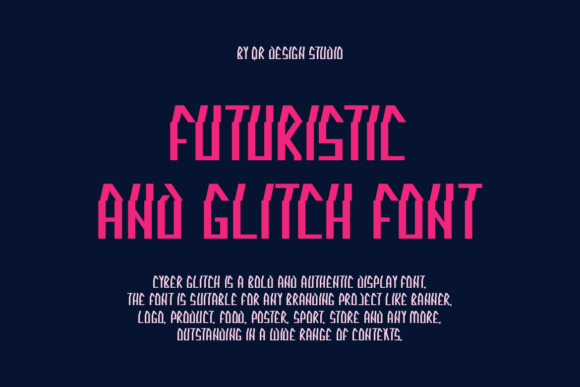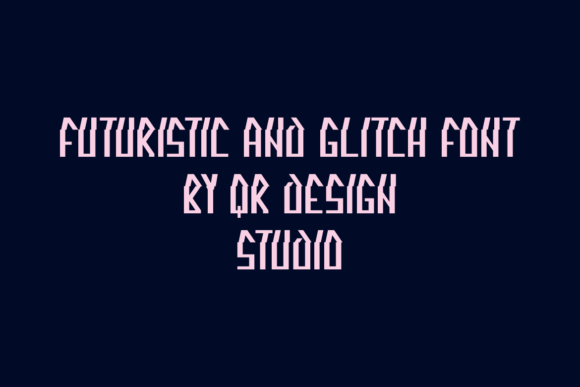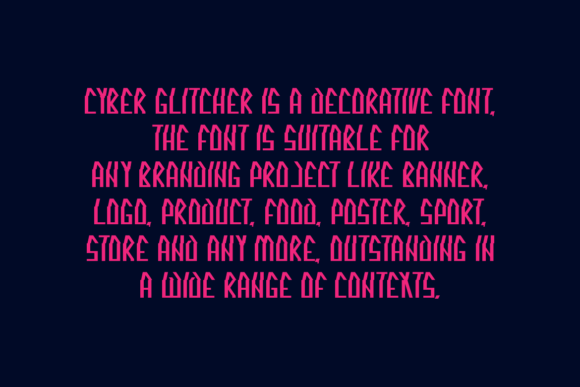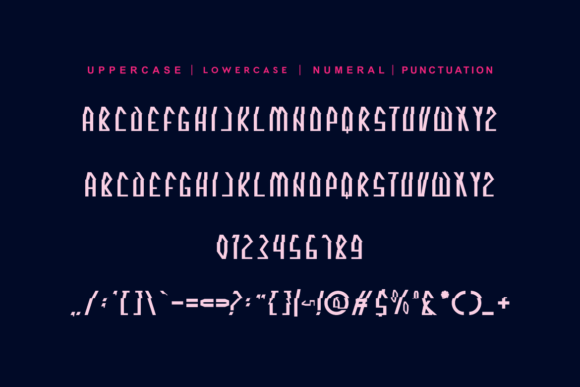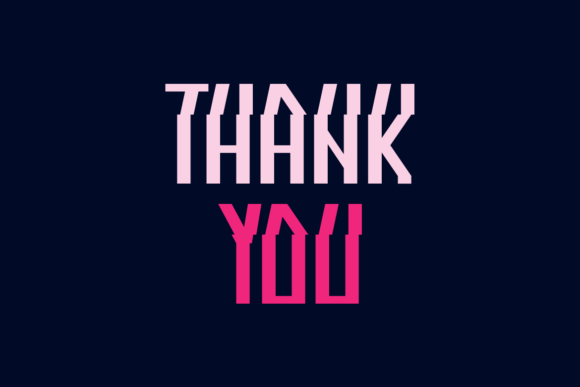
The Magical World of Cyber Glitcher Font
Have you ever been in the middle of a design project, and suddenly, you’re stuck on finding the perfect font? I recall a recent experience where I was working on a futuristic-themed poster, and my client requested a font that would transport their audience to a magical world. After hours of searching, I stumbled upon the Cyber Glitcher Font , and it was love at first sight! ✨
A Personal Review of Cyber Glitcher Font
As a designer, I’m always on the lookout for unique and versatile fonts that can elevate my projects. Here’s my honest review of Cyber Glitcher Font:
- ✨ Unique and quirky style: Cyber Glitcher Font has a modern yet whimsical feel that sets it apart from other display fonts.
- ✅ Excellent for futuristic and tech-themed designs: The font’s cyberpunk-inspired aesthetic makes it perfect for projects that require a bold and edgy look.
- 🔥 Highly legible: Despite its unconventional style, Cyber Glitcher Font is surprisingly easy to read, even at smaller sizes.
- 🎨 Versatile and adaptable: This font can be used for a wide range of design projects, from posters and flyers to social media graphics and presentations.
While Cyber Glitcher Font is an amazing addition to any design project, there are a few things to keep in mind:
- ⚠️ Limited use for body text: Due to its display font nature, Cyber Glitcher Font might not be the best choice for lengthy paragraphs or body text.
- 🤔 Some characters may require adjustments: As with any font, you might need to tweak certain characters to achieve optimal spacing and alignment.
The Backstory of Cyber Glitcher Font
While I couldn’t find any information on the font’s creator, I like to imagine that Cyber Glitcher Font was born out of a passion for futuristic design and a love for all things quirky. Perhaps the designer, fueled by late-night coding sessions and sci-fi novels, set out to create a font that would transport users to a magical world. Whatever the inspiration, Cyber Glitcher Font is undoubtedly a one-of-a-kind gem in the world of typography.
| Font Name | Cyber Glitcher Font |
| Author | qrdesignstd |
Q: What type of designs is Cyber Glitcher Font best suited for?
A: Cyber Glitcher Font is perfect for futuristic-themed designs, tech-related projects, and any creative endeavor that requires a bold and edgy look.
Q: Is Cyber Glitcher Font suitable for body text?
A: While Cyber Glitcher Font is highly legible, it’s primarily designed as a display font. For longer paragraphs or body text, you may want to consider a more traditional font.